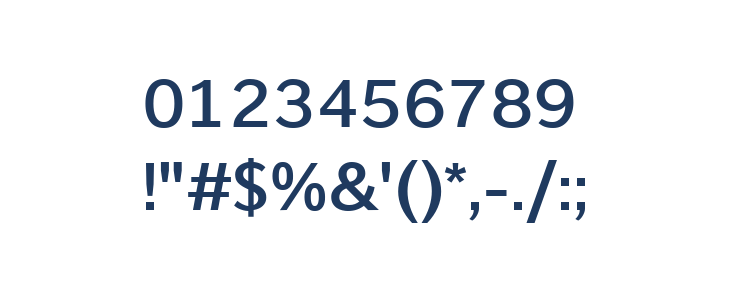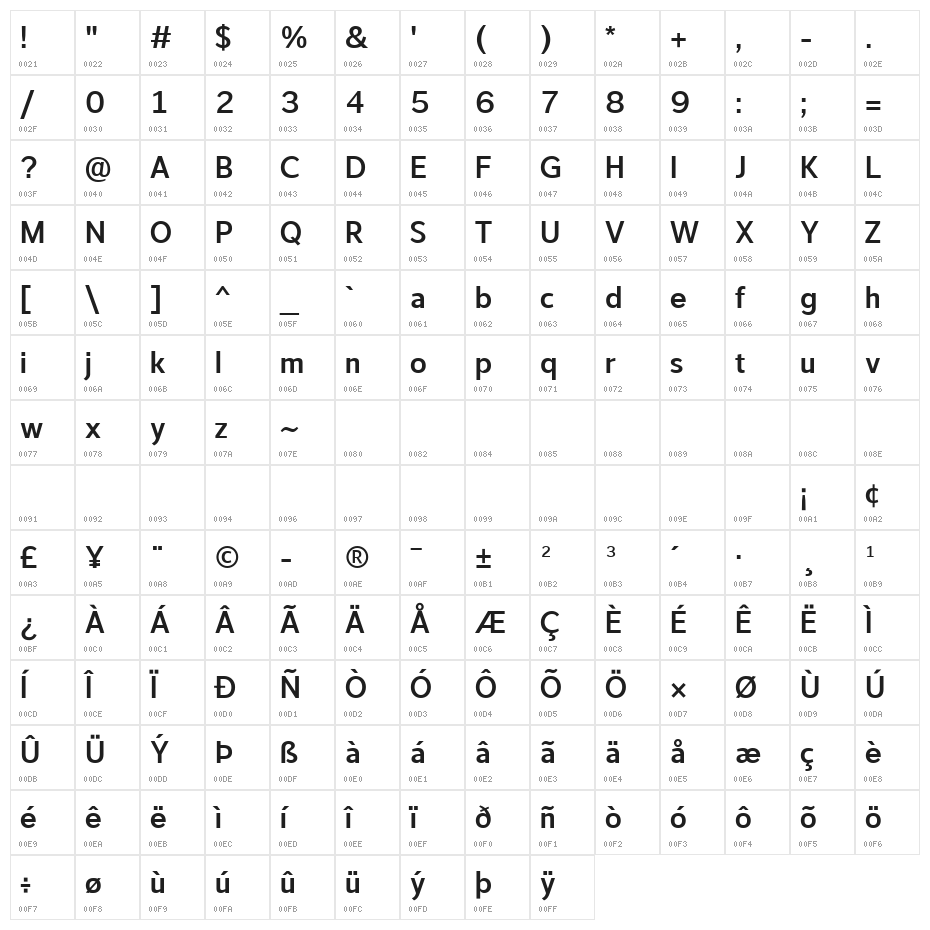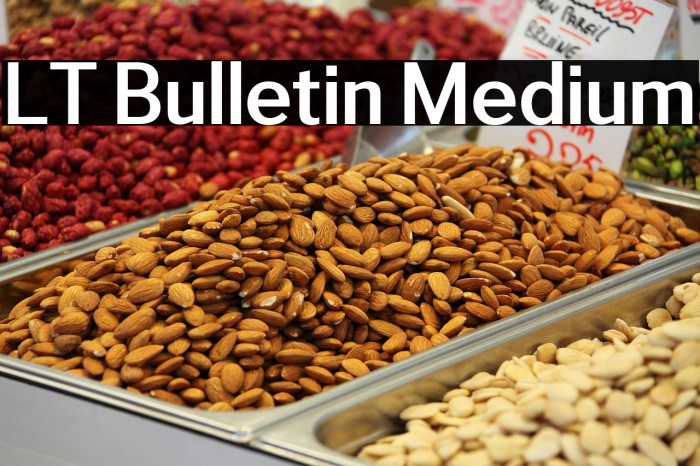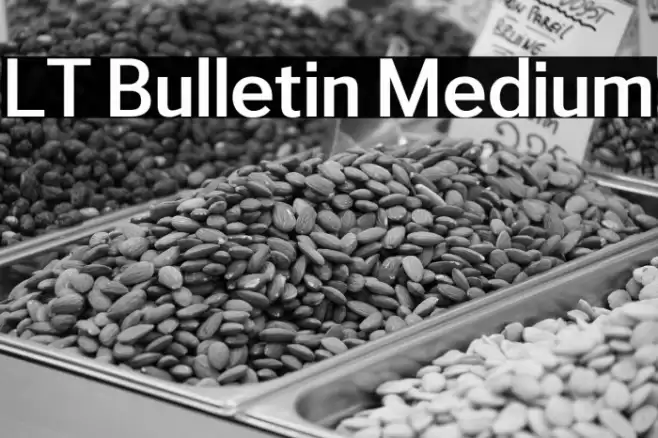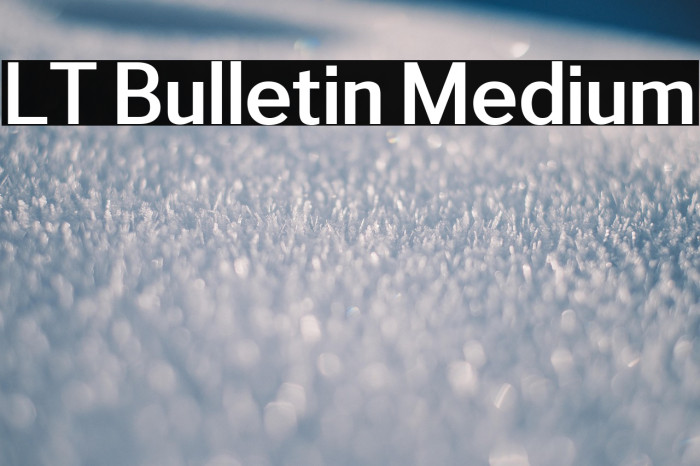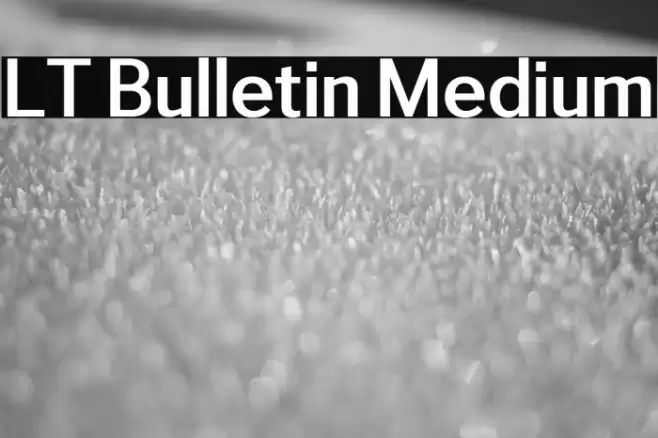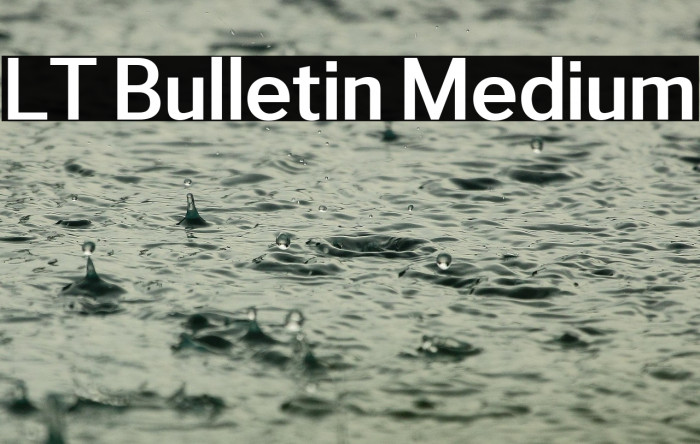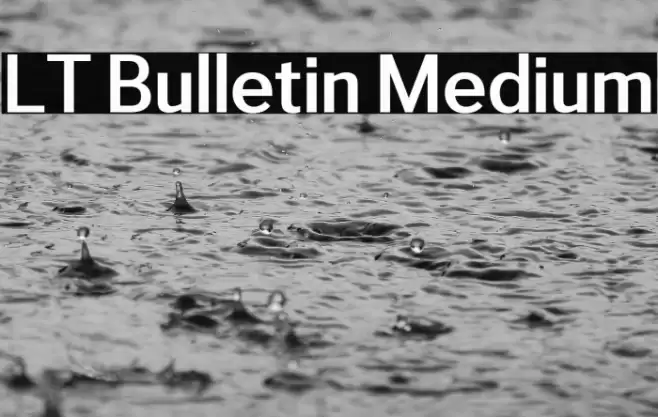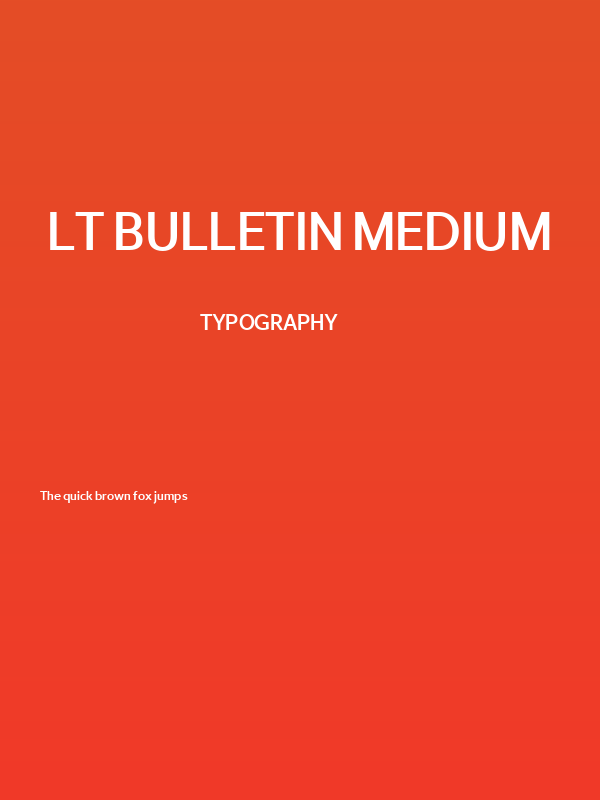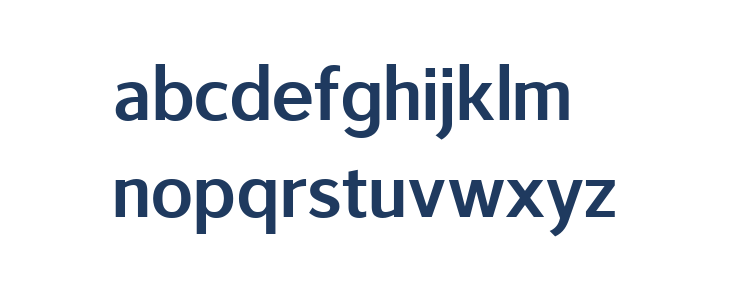
LT Bulletin Medium Font
LT Bulletin Medium Description
This typeface features a clean and modern sans-serif design, characterized by its uniform stroke width and geometric shapes. The uppercase letters are bold and assertive, while the lowercase letters maintain a consistent and harmonious appearance. The numerals are clear and legible, making them suitable for various applications. Special characters are well-defined, adding versatility to the font. The overall design is straightforward and professional, making it ideal for a wide range of uses.